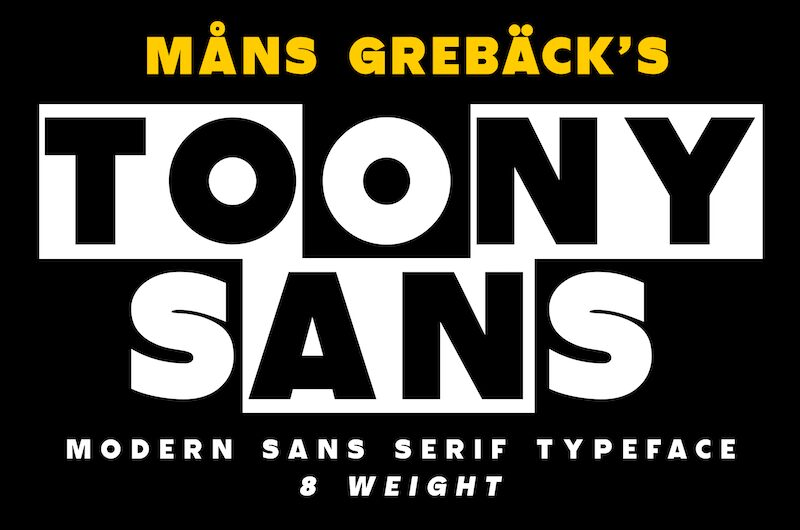
Toony Sans Italic, a creation by font designer Mans Greback, is a bold and semi-expanded sans-serif font with an extra-bold weight. With its modern interpretation of classic typography, this font brings together professionalism and a hint of nostalgic charm.
The crisp lines and sleek design make it suitable for a wide range of projects. Whether you're designing a vibrant logo for an animation studio or creating eye-catching headlines for a magazine layout, Toony Sans Italic will add personality and style to any project.